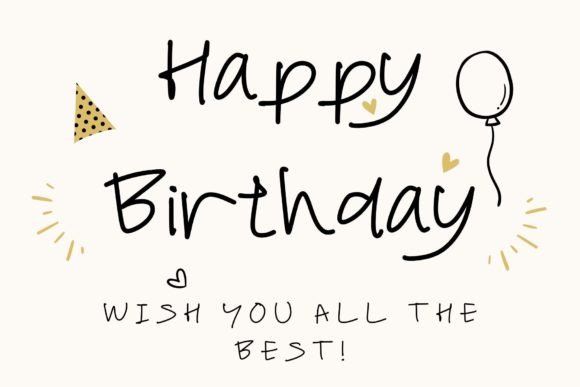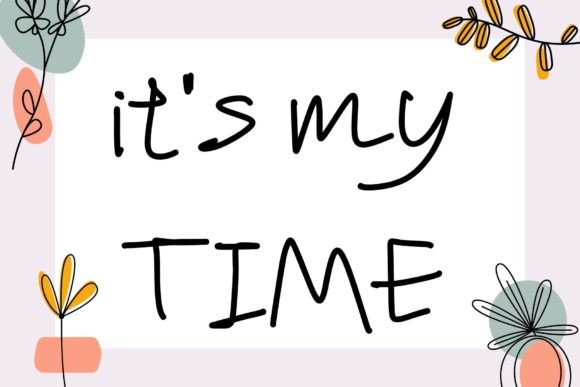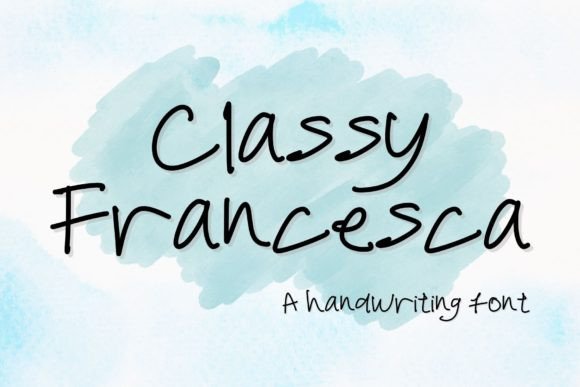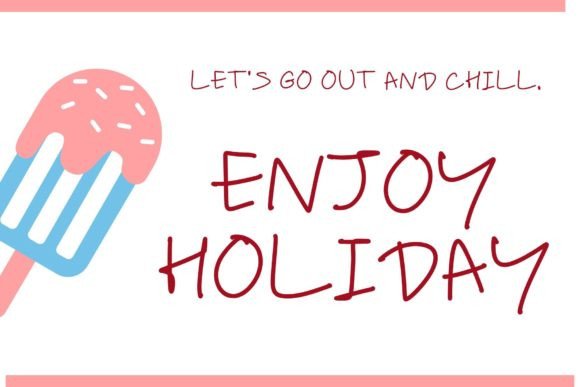
Classy Francesca Font
About the Classy Francesca Font
Crafted with precision, the Classy Francesca Font is ready to bring your ideas to life. Classy Francesca font is a stylishly messy handwritten typeface that exudes character and flair. With its playful and artistic strokes, this font adds a touch of personality and sophistication to your designs. Perfect for creating a unique and eye-catching look for invitations, branding, and creative projects, Classy Francesca effortlessly combines elegance with a touch of chaos.
Its expressive, slightly erratic nature makes Classy Francesca ideal for headlines, short text blocks on branding materials, and stylish packaging where its personality can shine. It works exceptionally well for invitations, short quotes, or logos requiring a touch of handwritten charm. However, avoid using it for body copy or extended text; its inconsistent stroke weights would hinder readability.
This font’s core personality is playful yet sophisticated. It conveys a sense of friendly elegance, making it suitable for brands targeting a younger demographic interested in art, fashion, or lifestyle products. Consider pairing it with a clean sans-serif like Lato for a balanced contrast, or a more structured serif like Playfair Display for a classic yet quirky feel.
For a bolder statement, a geometric sans-serif such as Montserrat would provide a modern counterpoint. Avoid pairing it with other script fonts as this risks visual clutter.
Classy Francesca Font Usage Examples
Classy Francesca Font Example